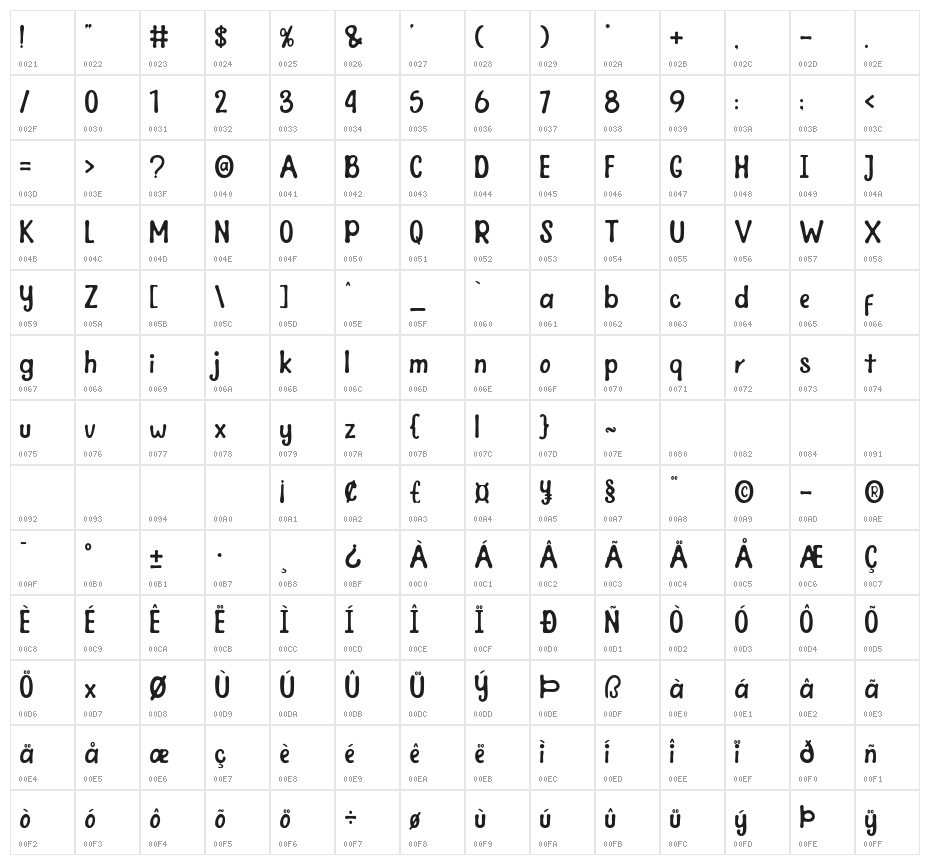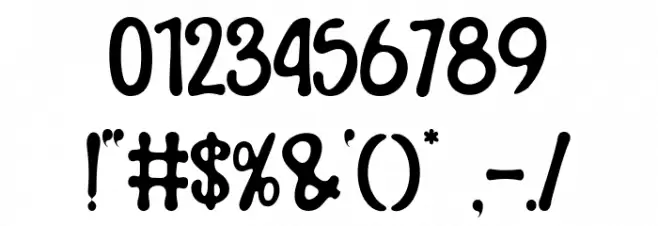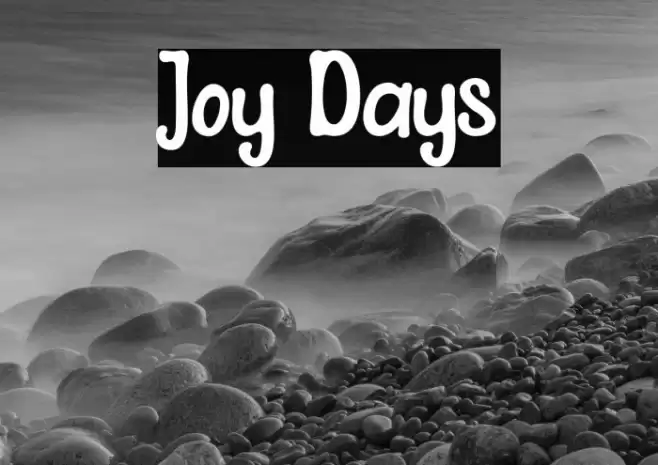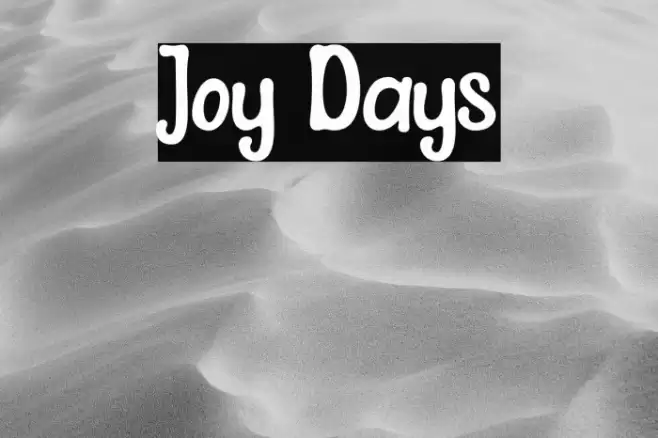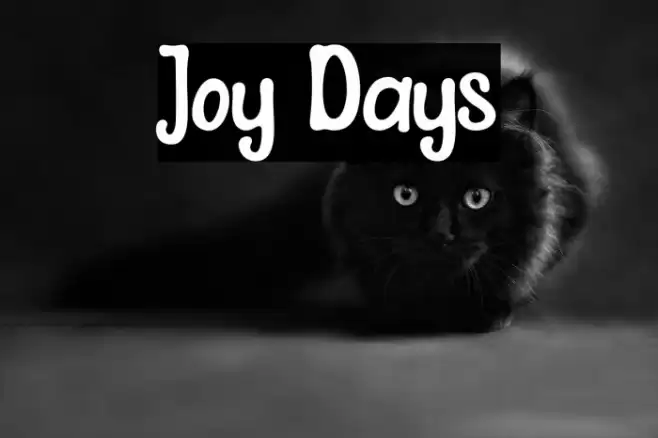
Joy Days Font
Joy Days Description
This playful and whimsical font features rounded, bubbly characters that exude a sense of fun and joy. The letters are bold and slightly irregular, giving them a hand-drawn appearance that adds to their charm. The uppercase and lowercase letters maintain a consistent style, with the uppercase being slightly larger and more pronounced. Numbers and special characters follow the same playful design, making them easily recognizable and cohesive with the rest of the font. The overall look is casual and friendly, perfect for projects that require a touch of personality and warmth.
| Overall Style | Playful |
| Use Case | Headlines, Logos, Invitations |
| Proposed Projects | Ideal for children's books, playful branding, party invitations, and casual social media graphics. |